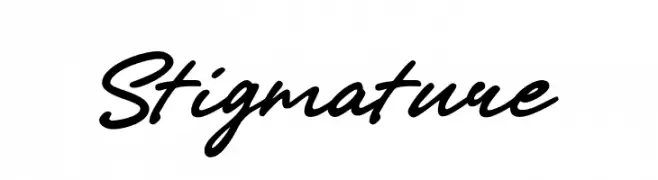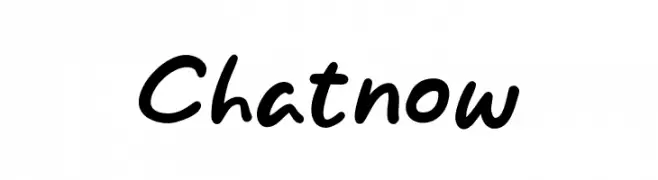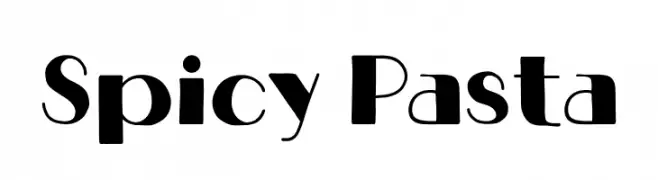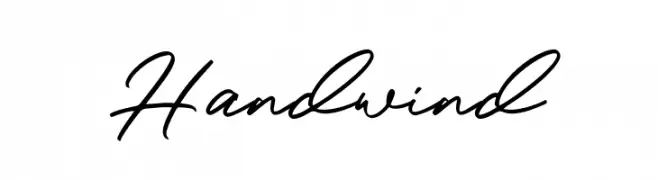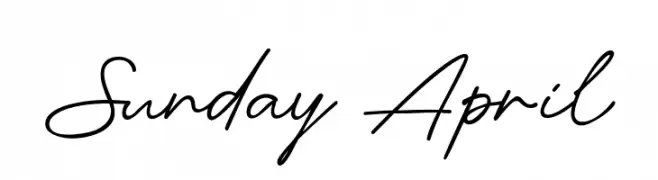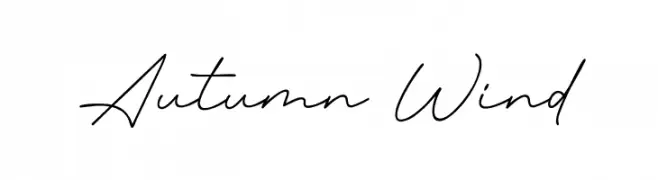
A modern serif font with bold uppercase and elegant lowercase characters.
A dynamic, cursive handwritten font with smooth, flowing connections.
A dynamic and elegant handwritten font with fluid, connected strokes.
A bold, energetic script font with a handwritten feel.
A playful, handwritten font with smooth curves and a casual, dynamic style.
A bold, handwritten-style font with dynamic, sweeping strokes.
A playful and dynamic font with bold uppercase and casual lowercase characters.
A cursive, handwritten-style font with fluid, connected strokes.
A cursive, handwritten-style font with a flowing, elegant appearance.
A graceful, cursive script font with a natural handwriting style.